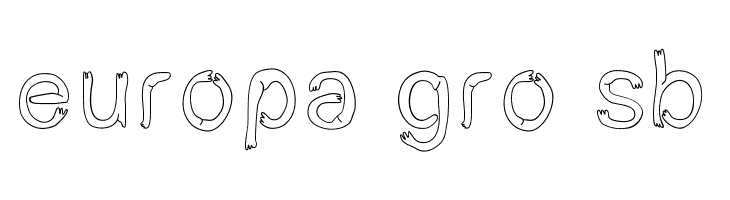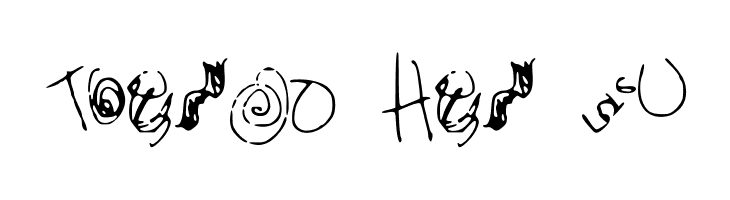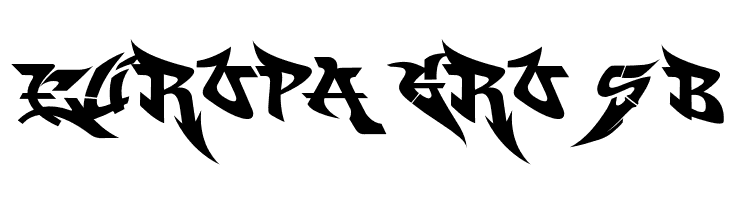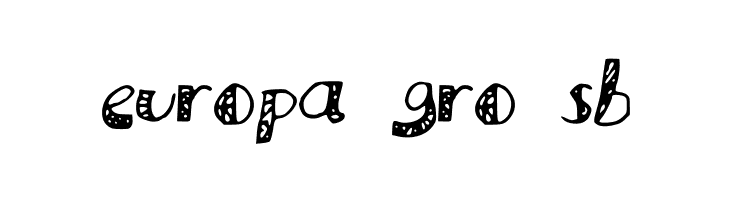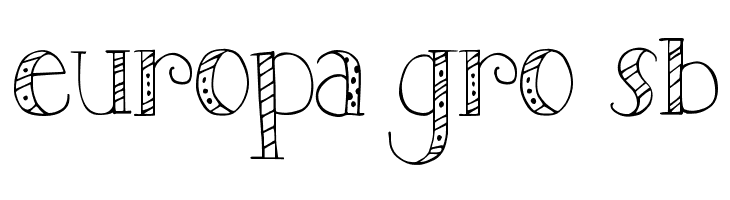
( Free - apolstamaria.com ) A playful font with characters featuring small arms and hands, perfect for humorous and creative projects. Download 287 Downloads@WebFont
( Free - apolstamaria.com ) A playful, hand-drawn font with bold, uneven outlines and a whimsical style. Download 179 Downloads@WebFont
( Free for personal use - www.graffitifonts.com ) A bold, graffiti-inspired font with sharp angles and dynamic styling. Download 1025 Downloads@WebFont
( Fonts by a Brice You [Bibliopolæ] - bibliopolae.tictail.com . Personal-use only. For commercial use please contact owner. ) A slender, hand-drawn font with elongated strokes and a whimsical style. Download 731 Downloads@WebFont
( Fonts by Darcy Baldwin - darcybaldwin.com. Free for personal use only ) A playful, decorative font with polka dots and stripes, perfect for creative projects. Download 445 Downloads@WebFont
( Fonts by junkohanhero ) A bold, polka dot patterned font perfect for decorative and playful designs. Download 178 Downloads@WebFont
( Copyright 2013 Seoul Metropolitan Government (gonabis@seoul.go.kr) ) A modern, clean sans-serif font with excellent readability and balance. Download 1156 Downloads@WebFont
( Copyright (c) 2013 by Sovichet Tep with Reserved Font Name "Kdam Thmor". ) A bold, modern font with clean lines and geometric structure. Download 387 Downloads@WebFont